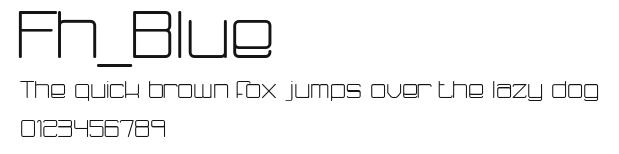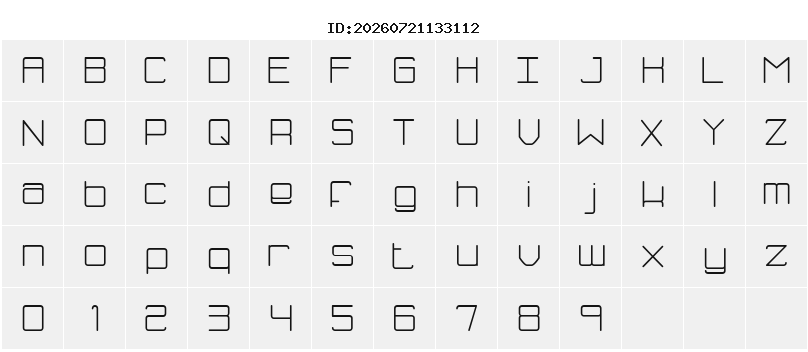
• Font Name: Fh_Blue
• Designer: Dan Meyer (Fictionalhead)
About Fh_Blue.ttf
Fh_Blue.ttf is a modern, elegant sans-serif font designed for ultimate readability and visual harmony. Perfect for branding, headlines, web design, and print materials.